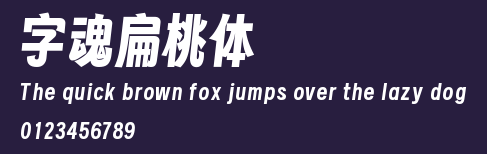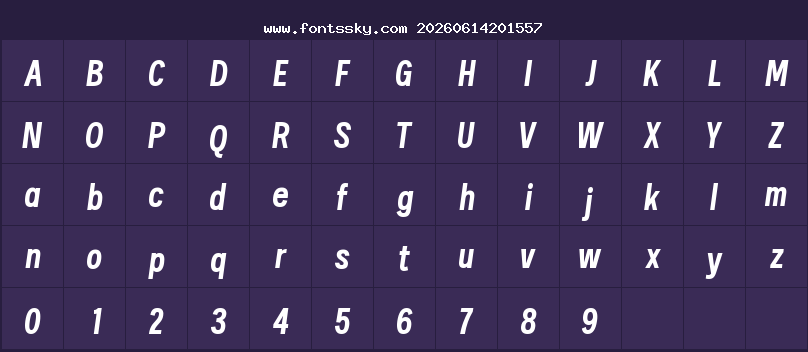
字魂扁桃体 Preview
• Font Name: 字魂扁桃体
• Full Font Name: 字魂扁桃体
• Character Count: 7639
• Designer: 字魂网
• Manufacturer: 上海字魂网络科技有限公司
About 字魂扁桃体.ttf
字魂扁桃体.ttf is a modern, elegant sans-serif font designed for ultimate readability and visual harmony. Perfect for branding, headlines, web design, and print materials.